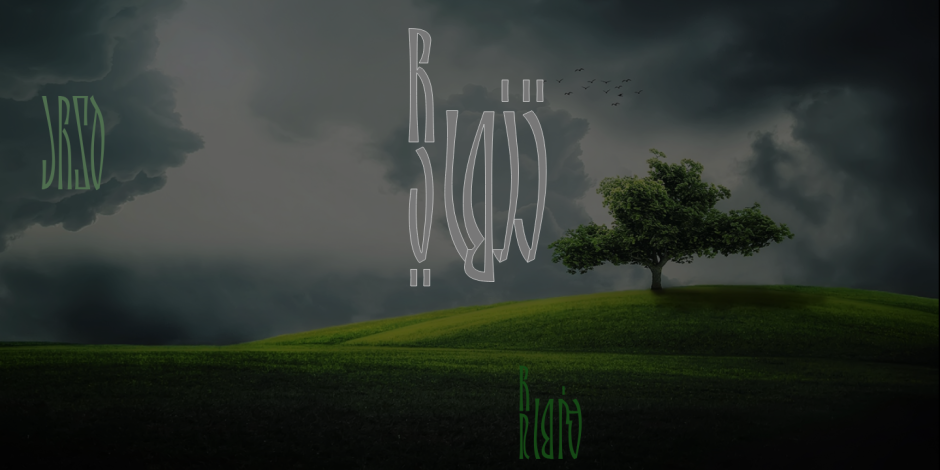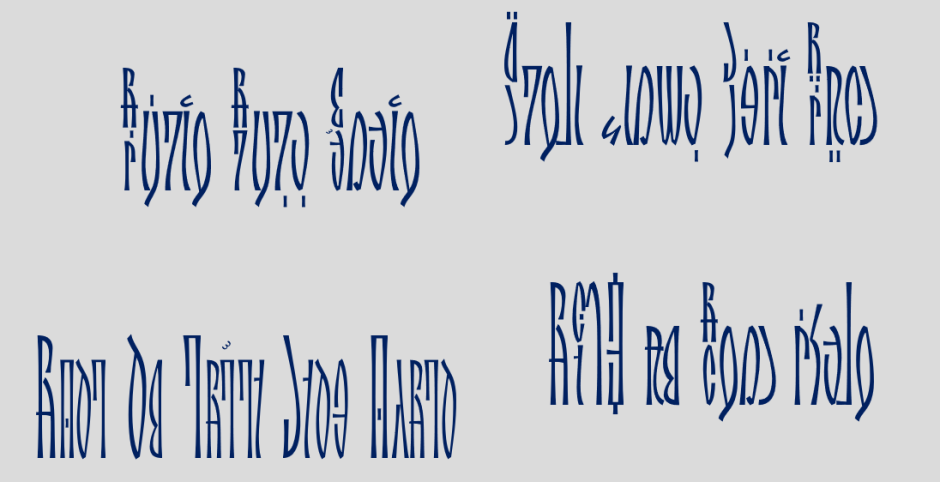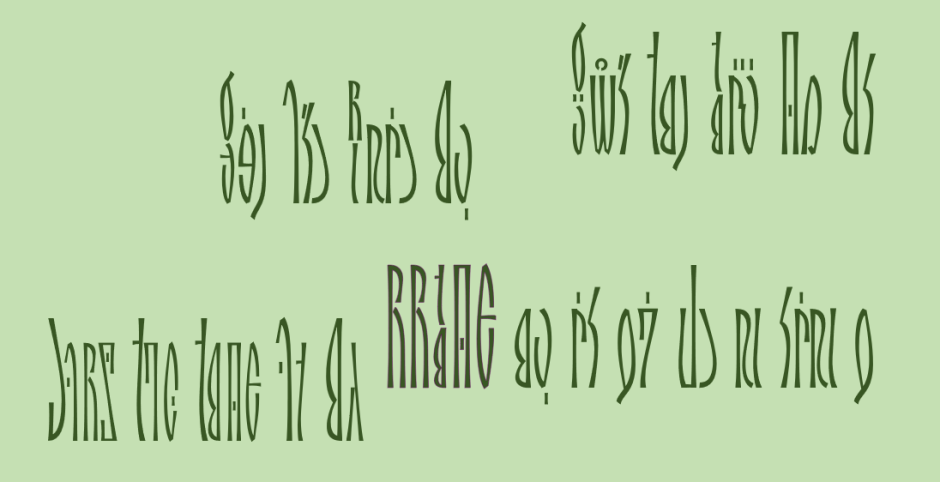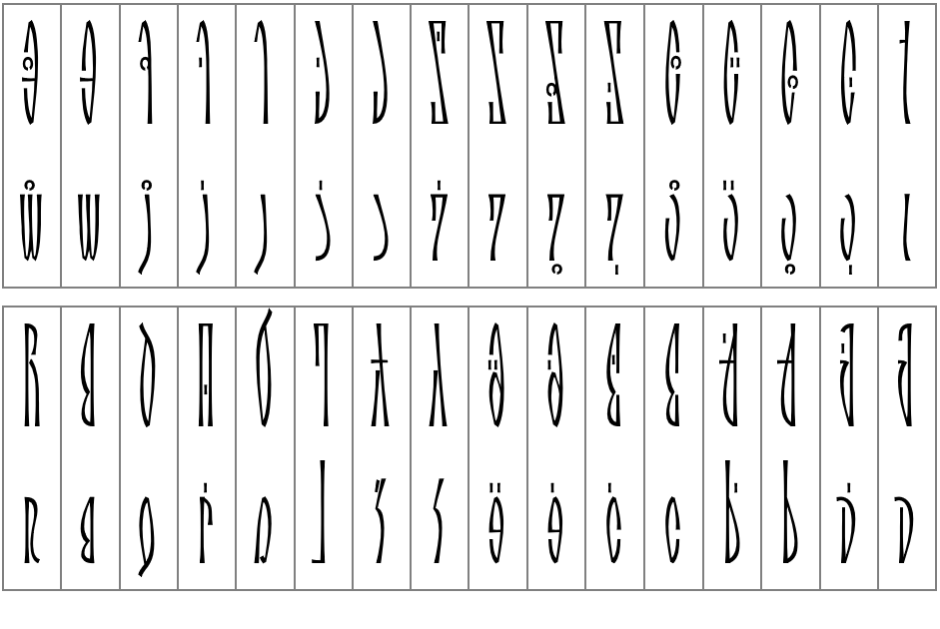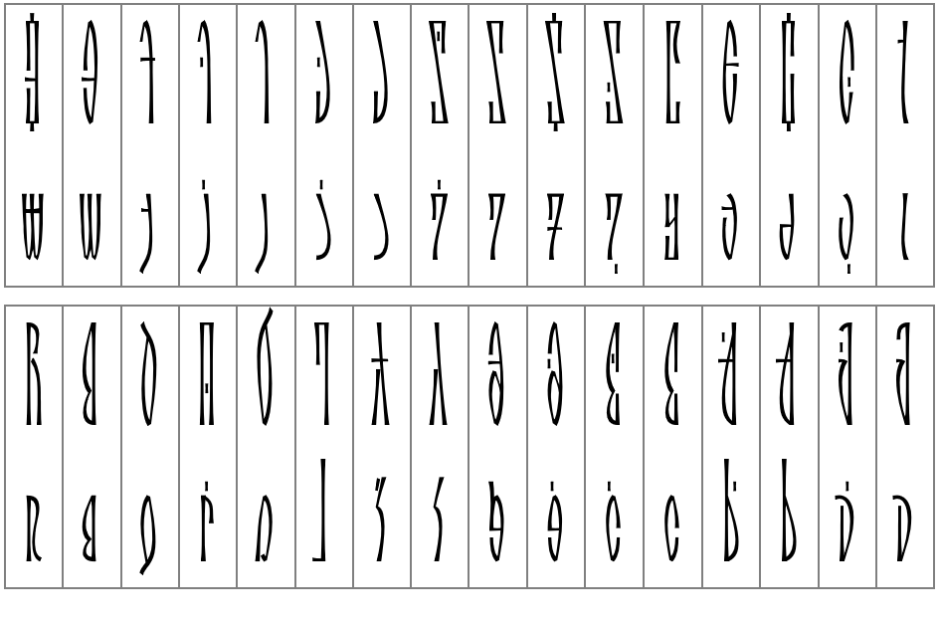
/ tenhayee LP Thin
Tenhayee (تنهایی, Loneliness) is the most condense perso-arabic font ever designed. This is possible because of the proposed perso-arabic writing system which from now on we call it ARTIN.
In contrast to conventional Arabic fonts, all five font styles within this family feature disconnection. Furthermore, the shapes of the capitalized (isolated) letters have been modified to engender a more consistent aesthetic.
The tanhayee LP (Less Point) thin denotes the dot-reduced version, wherein glyphs containing two or more dots are substituted with new dotless shapes. It is important to note that, with the exception of the tanhayee thin style, all other styles utilize the reduced dots alphabet.
The tenhayee MC (Mixed Case) thin emulates Latin fonts, allowing typists to toggle between lowercase (Initial) and uppercase (Isolated) letters through a software Caps Lock key. This software Caps Lock feature can be turned on or off by inputting The Tatweel letter.
The final two styles consist of the Small Caps (tenhayee SC thin) and All Caps (tenhayee AC thin) versions within this font family.
Please be aware that additional related styles are available within the tenha font family.
The style of this font family is inspied by the Drumnik font.